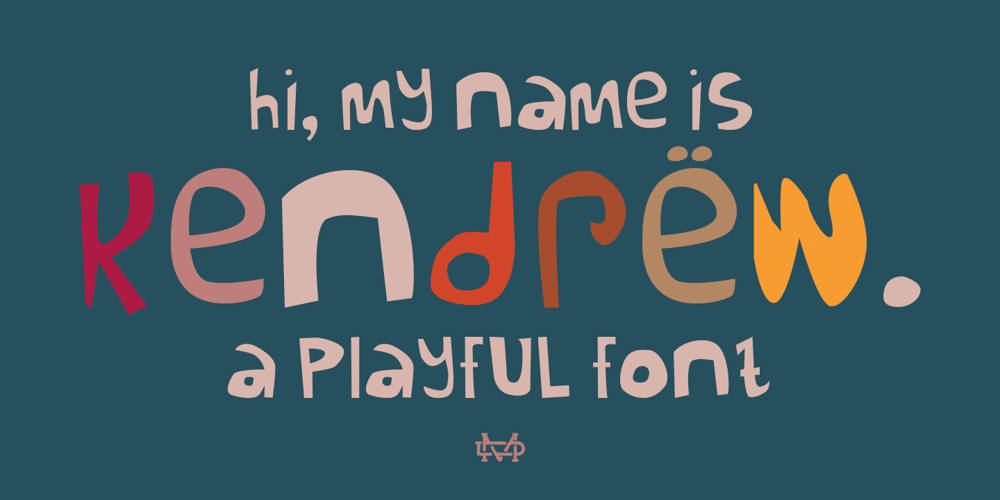
Kendrew Font Family was designed by madededuk and published by madeDeduk. Kendrew contains 1 styles and family package options. Introducing The Kendrew is a kids handwriten playful font and will be perfect for book, title branding, product packaging, invitation, quotes, t-shirt, label, poster, logo etc.Feature Uppercase & Lowercase Number & Symbol International Glyphs Multilingual support Feel free to drop us a message any time and follow my shop for upcoming updatesShoot me on email at: dedukvic@gmail.com and find more previews on my Instagram here : https://www.instagram.com/acekelgondolayu/?hl=enHope you enjoy it.